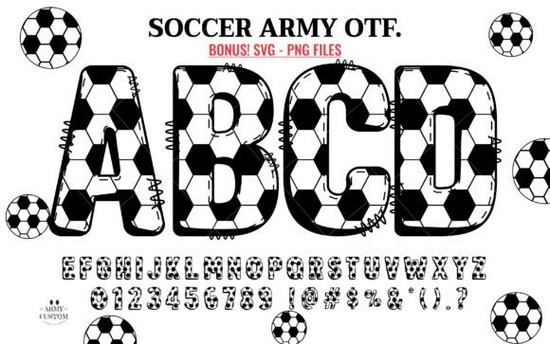
If you're creating sports-themed designs for apparel, posters, or digital projects, the Soccer Football Army Font offers a bold and energetic look that captures the spirit of competition. Designed with sharp angles and athletic flair, this font brings a rugged, team-ready aesthetic to any creative project whether you're making custom T-shirts for a youth league, designing game-day flyers, or crafting social media graphics for a local fan group.
What makes this font stand out is its dual personality: it comes in both a solid black version and a vibrant color version. The black variant works smoothly with cutting machines like Cricut Design Space, making it ideal for vinyl cutters and crafters who need clean, single-color lettering. On the other hand, the color version uses layered glyphs to create rich, multi-hued letters but keep in mind it’s only compatible with design software like Adobe Photoshop, Illustrator, Silhouette Studio, and Inkscape. It won’t work directly in Cricut Design Space due to how color fonts are structured.
Who is this font best suited for?
This font shines for creators who want to convey strength, speed, and team pride without relying on cliché graphics. If you run a small print-on-demand shop, you’ll find it especially useful for seasonal collections around football season or school sports events. Coaches, team managers, and PTA volunteers can use it to make eye-catching banners or spirit wear. Even hobbyists working on scrapbooks or party decorations will appreciate its distinctive character.
Because it leans into a military-sport hybrid style think bold block letters with tactical edges it pairs well with camouflage patterns, team logos, or action photography. Just be mindful of contrast: light backgrounds help the darker strokes pop, while the color version already includes built-in dimension.
How does it compare to other playful or sporty fonts?
Unlike rounded or cartoonish alternatives like the Groovy Daisy Font, which leans into retro whimsy, the Soccer Football Army Font is all about intensity and structure. It doesn’t soften its edges for charm it leans into them for impact. Similarly, while the 3D Spring Font adds depth through bubbly extrusion, this font uses sharp geometry and tight kerning to suggest motion and discipline.
That said, it’s not overly aggressive. The letterforms remain legible at smaller sizes, which is crucial if you’re printing names on jerseys or creating readable event schedules. And because it’s available as both OTF and TTF files (depending on the version), most users won’t have trouble installing it on Mac or Windows systems.
What should I know before using the color version?
Tips for getting the most out of this font
- Pair it wisely: Use clean sans-serif fonts for body text or secondary info to avoid visual clutter.
- Test readability: Avoid using all caps at very small sizes the tight spacing can blur letter distinction.
- Consider context: While it’s called “Soccer Football,” the design leans more toward American football aesthetics, so it resonates best with U.S.-based audiences or gridiron themes.